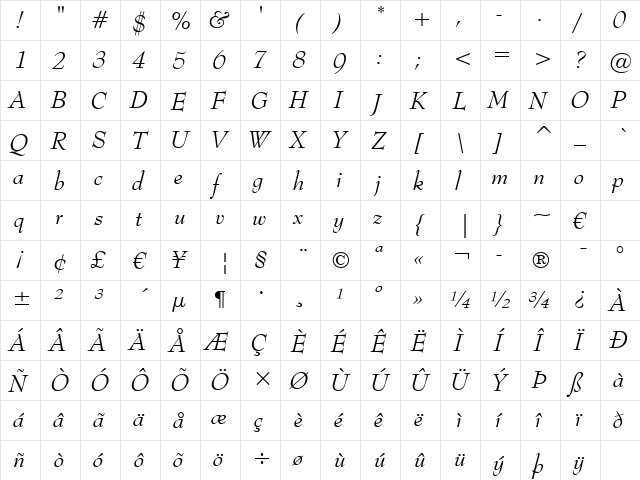
BernhardMod BT Italic
Design Context for BernhardMod BT Typeface
BernhardMod BT offers clean, dependable letterforms without strong stylistic allegiance, making it a practical choice for designers who need flexibility. Its italic angle brings a sense of urgency and motion to the letterforms.
Pro Tip: Try BernhardMod BT for annotation and caption copy alongside an upright companion — the contrast in angle creates a dynamic but ordered typographic system.